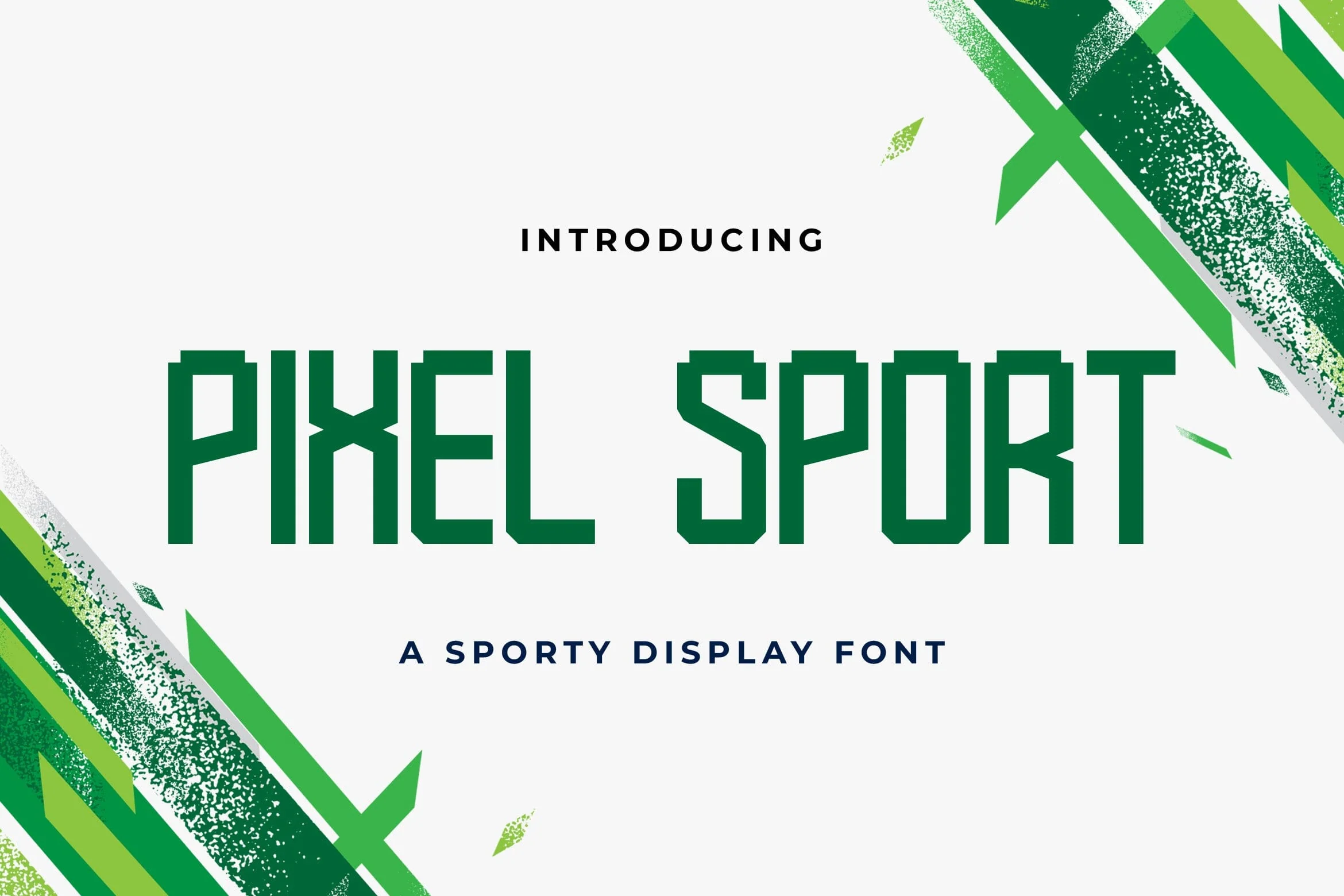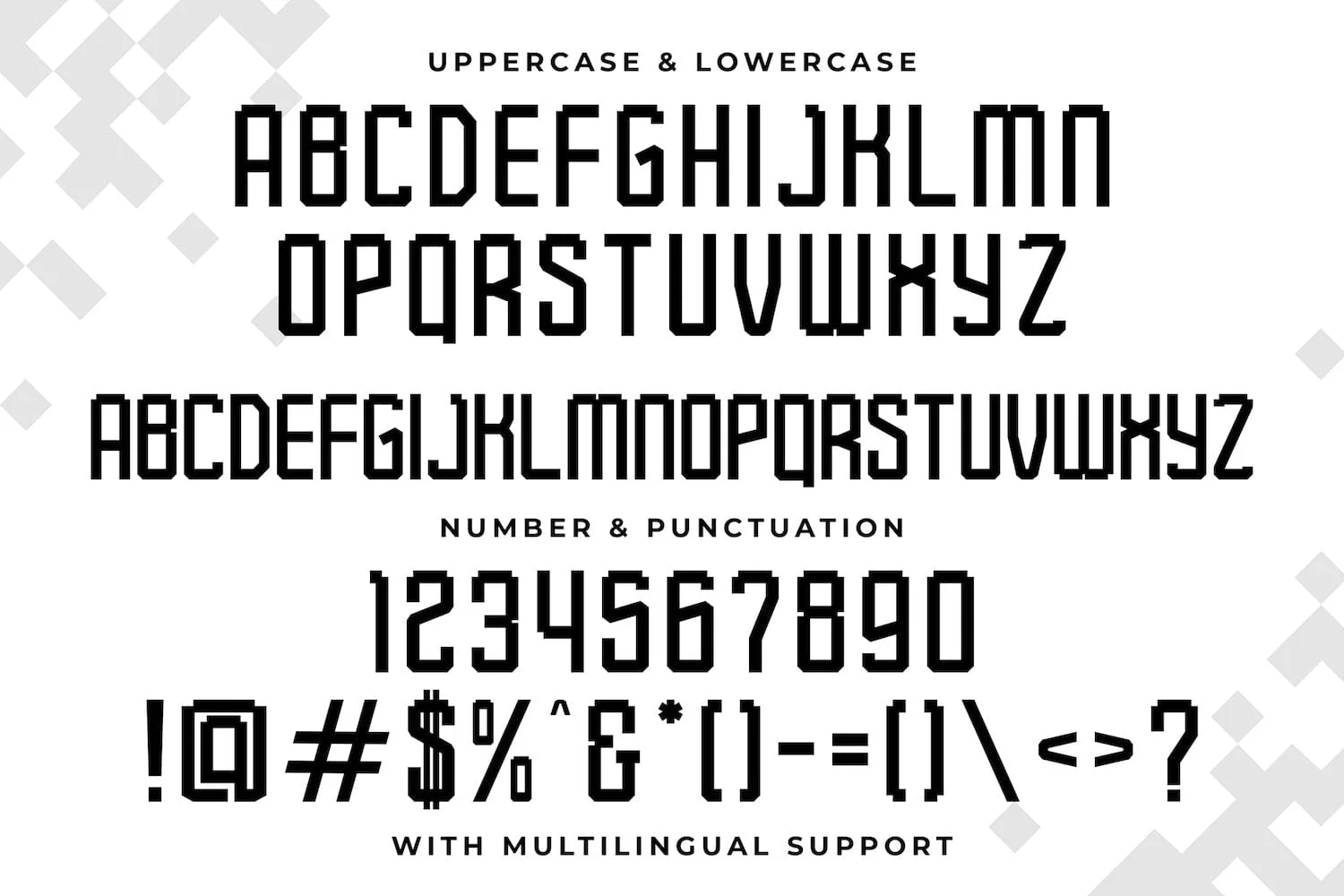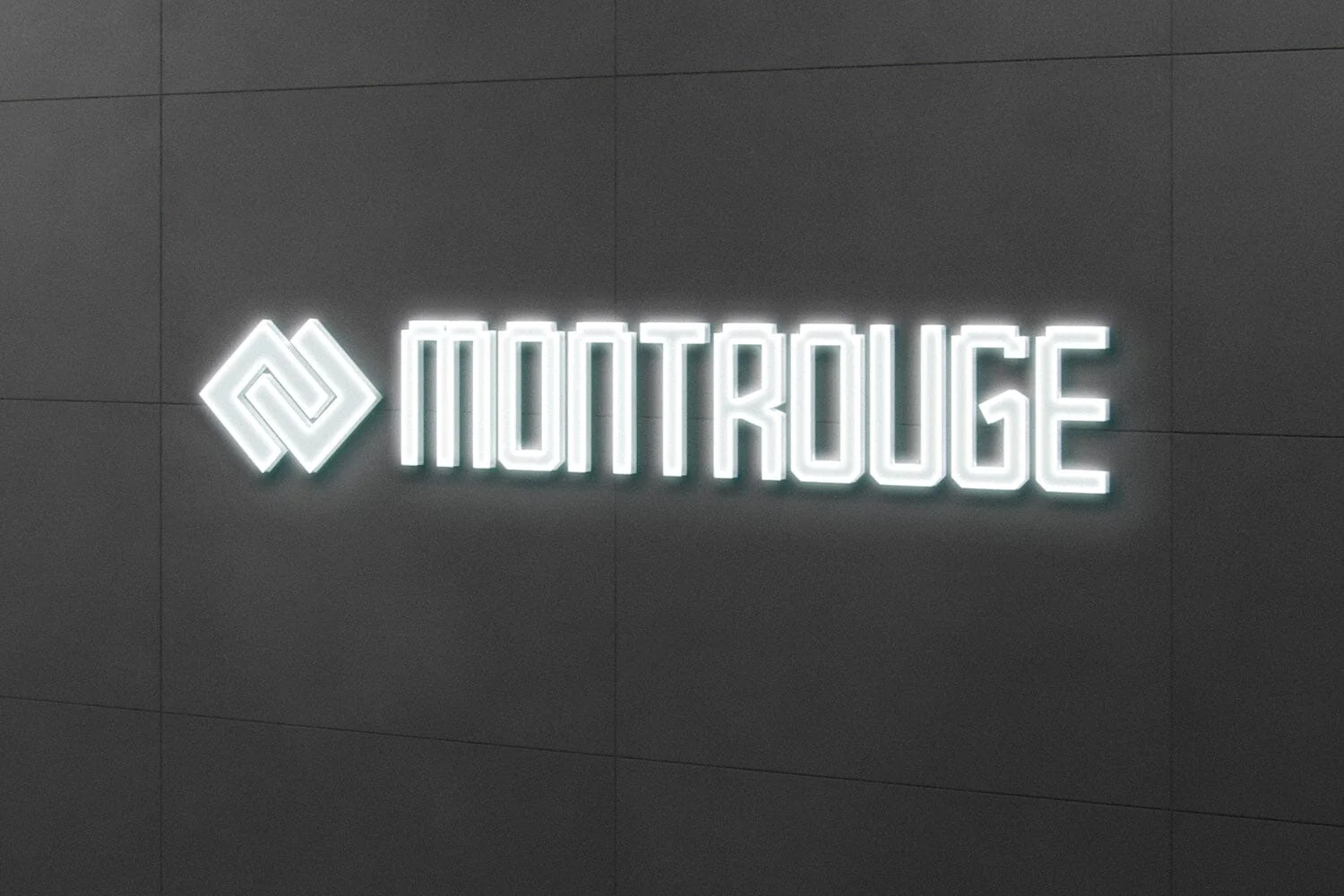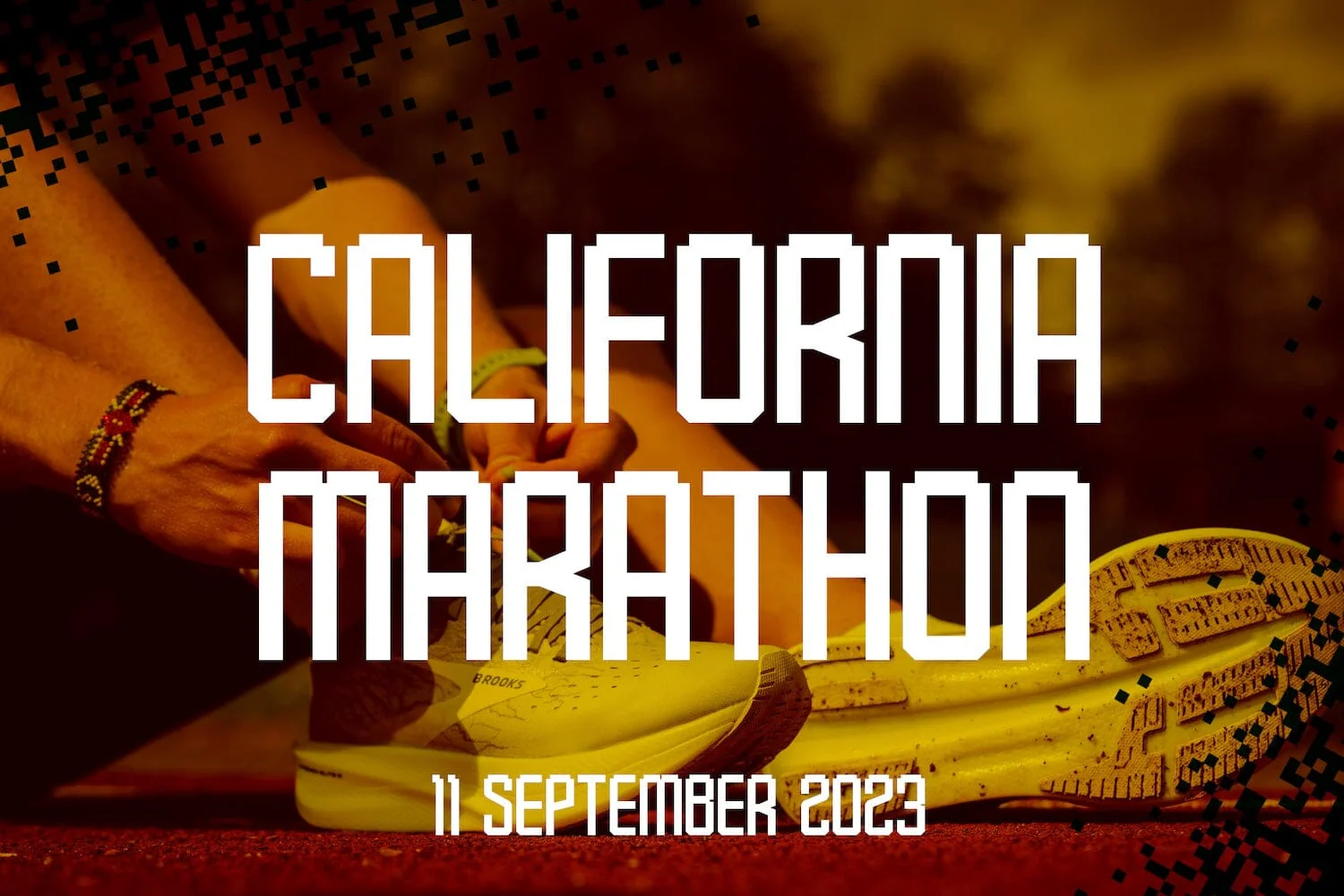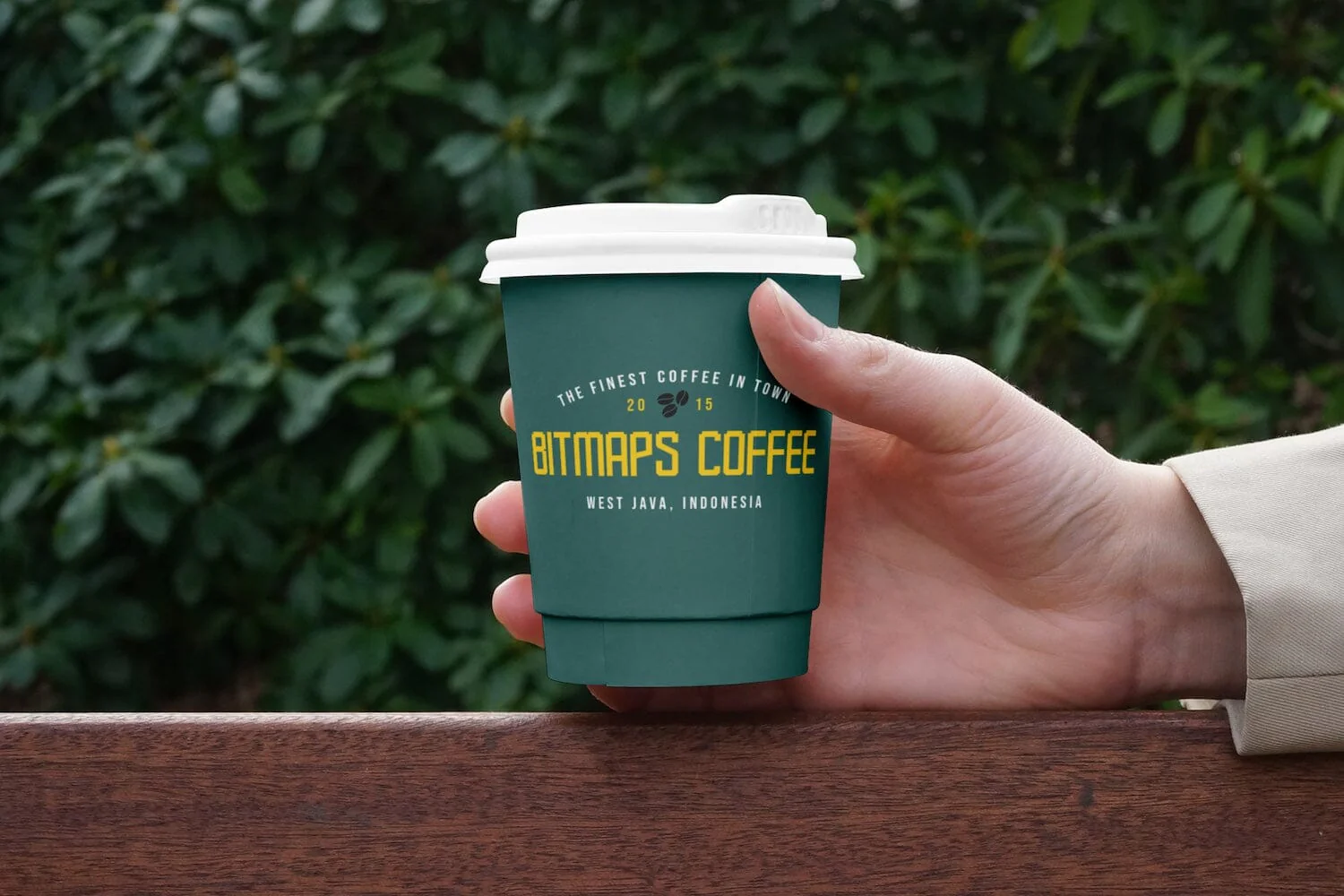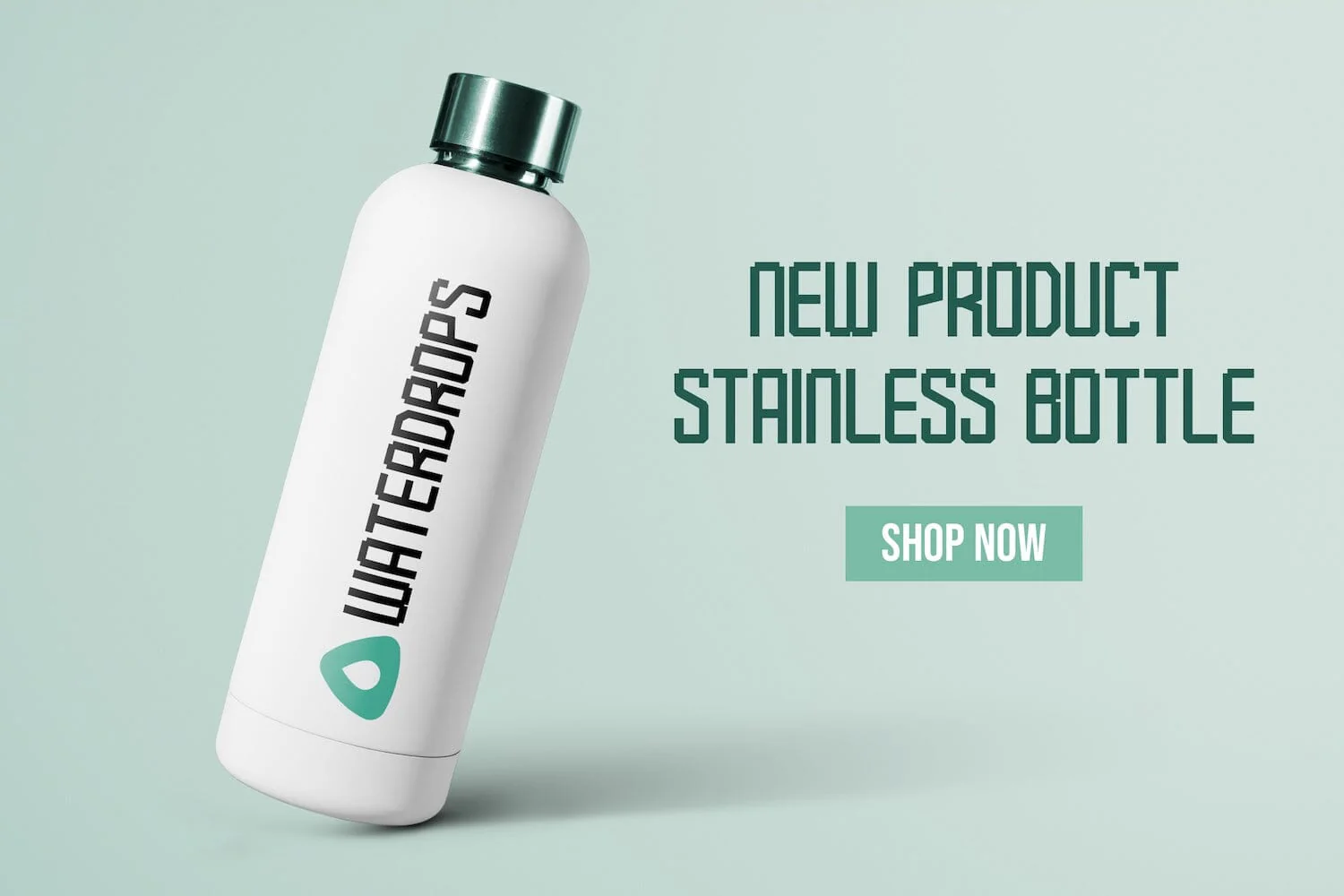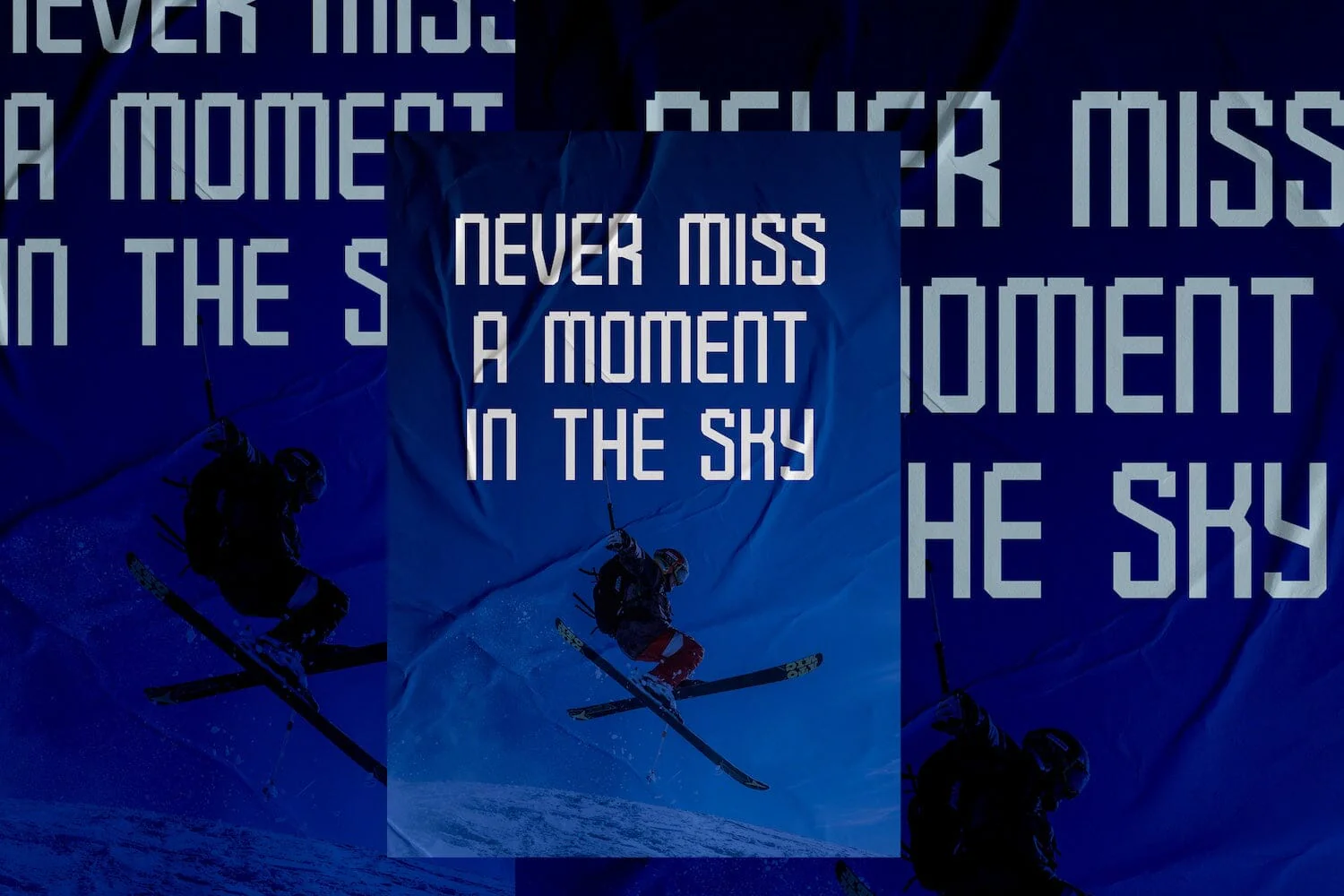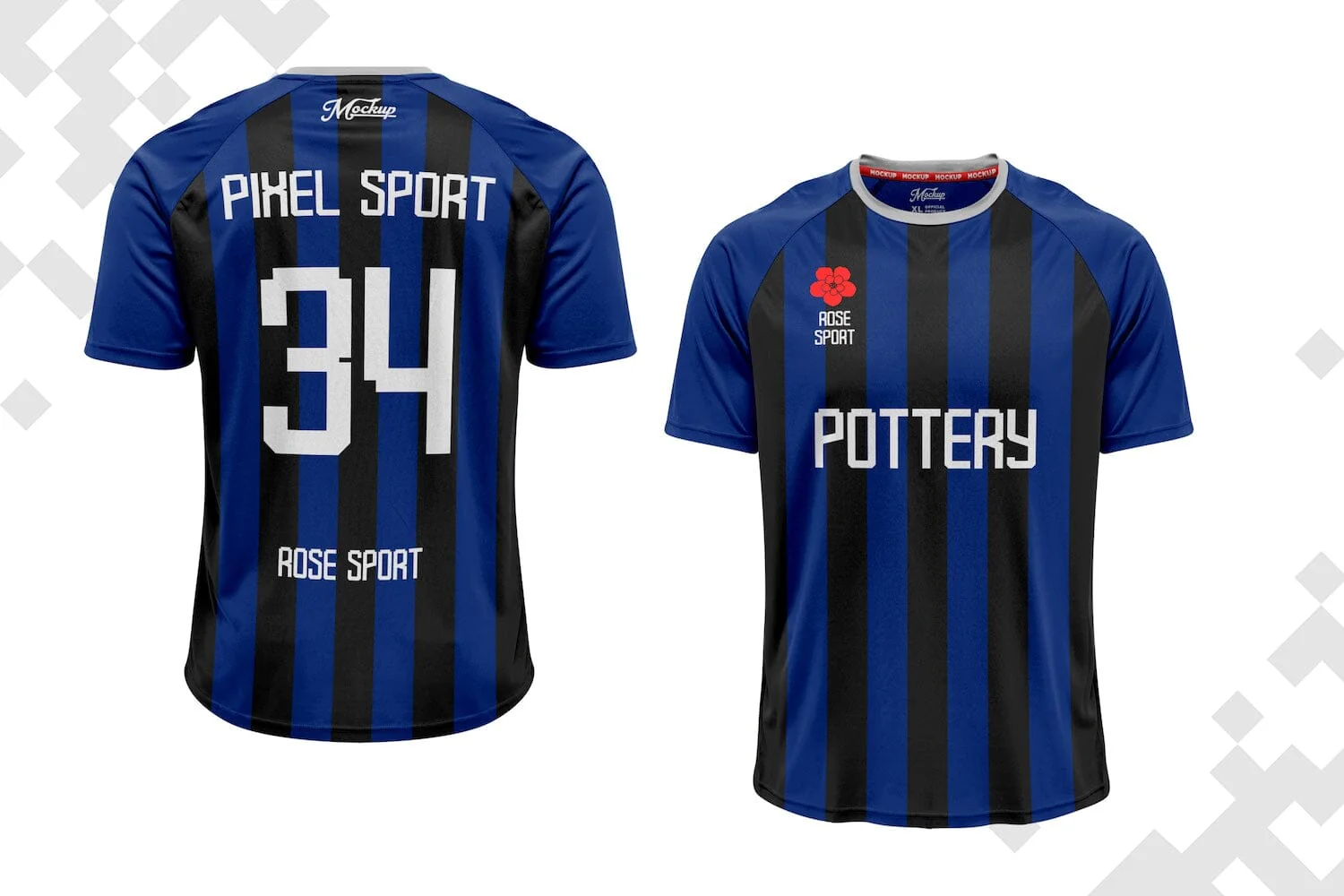
Pixel Sport - Sporty Display Font
Introducing Pixel Sport - Sporty Display Font
Pixel Sport is a sporty and modern display font. This playfully conceptual typeface font will look truly outstanding in a wide range of contexts. This font is very suitable for your any sports needs.